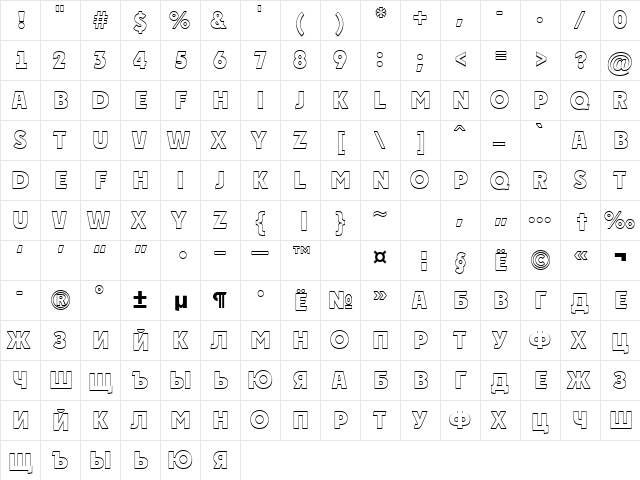
a_PlakatTitul3D ExtraBold
Design Context for a_PlakatTitul3D Typeface
a_PlakatTitul3D takes a measured approach to typography — its balanced proportions and neutral character make it a reliable workhorse for both digital and print work. The heavy weight commands attention and anchors typographic hierarchies.